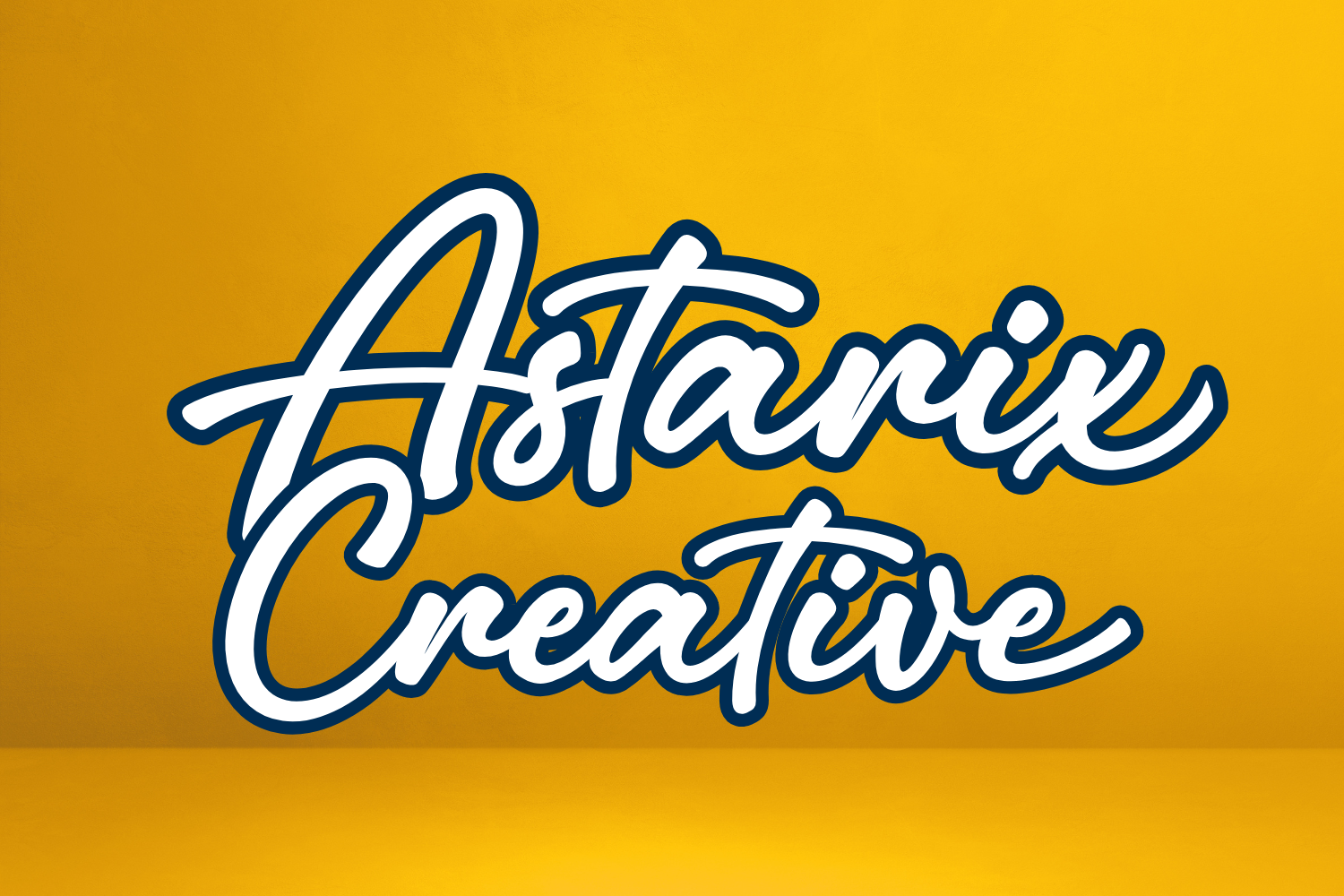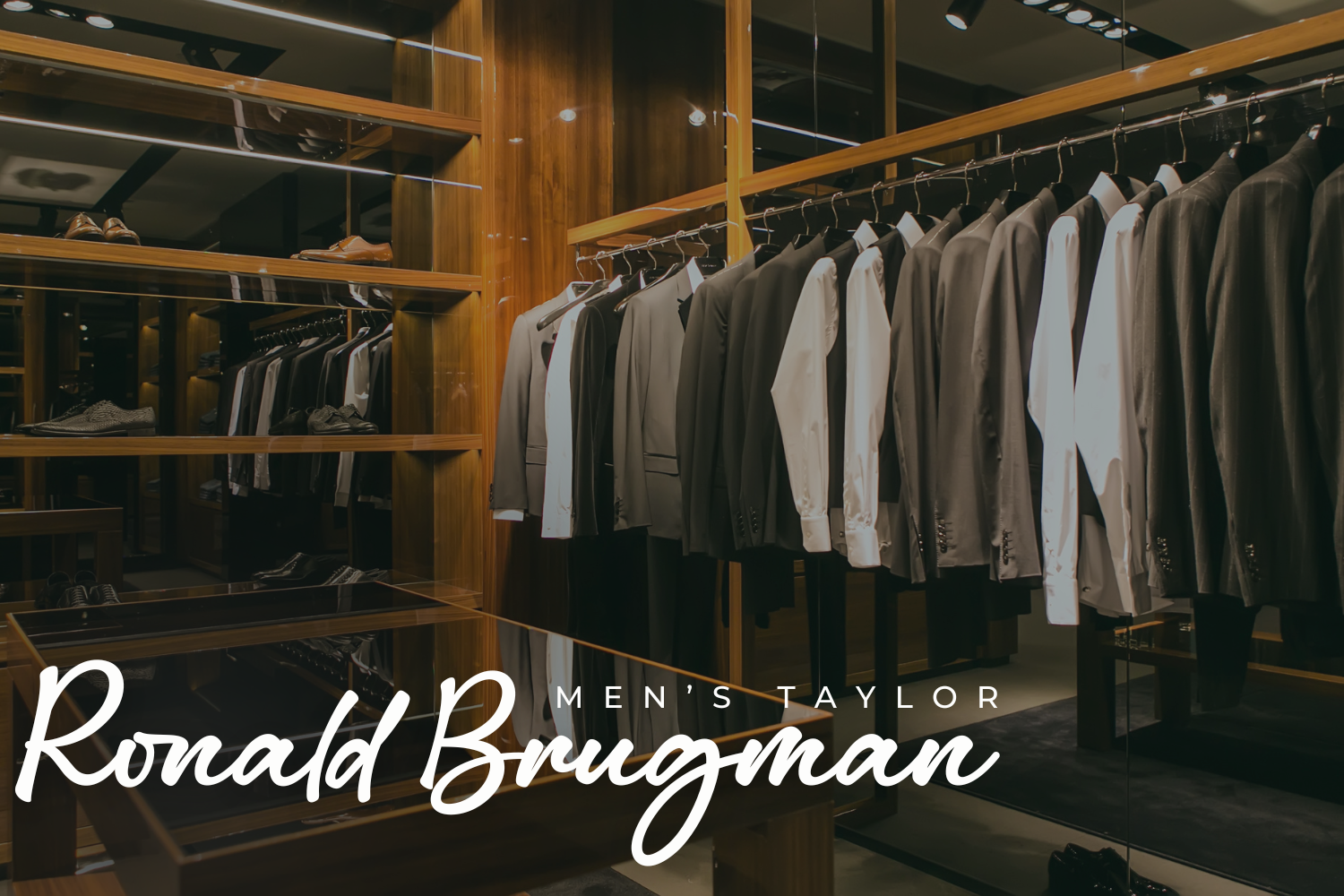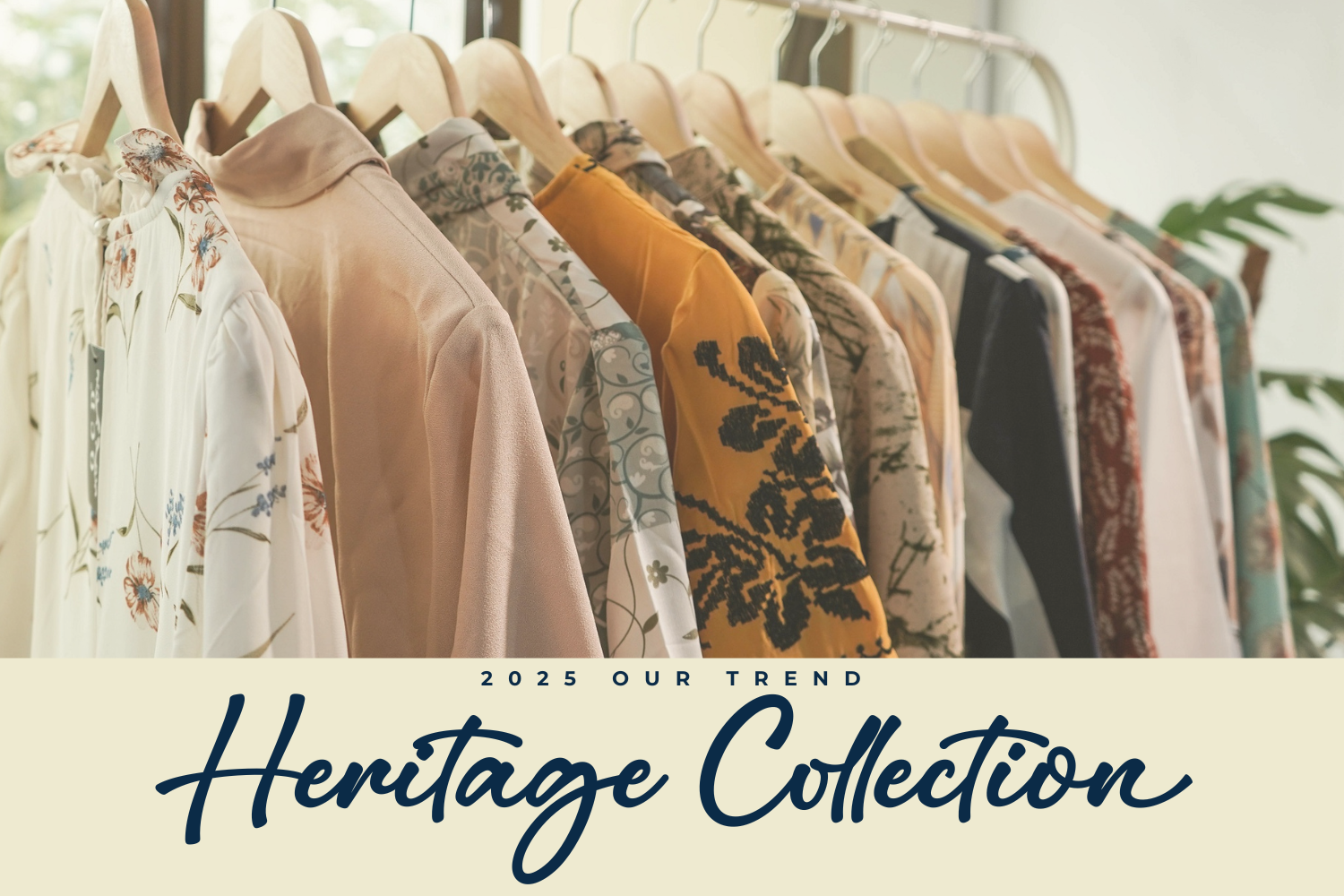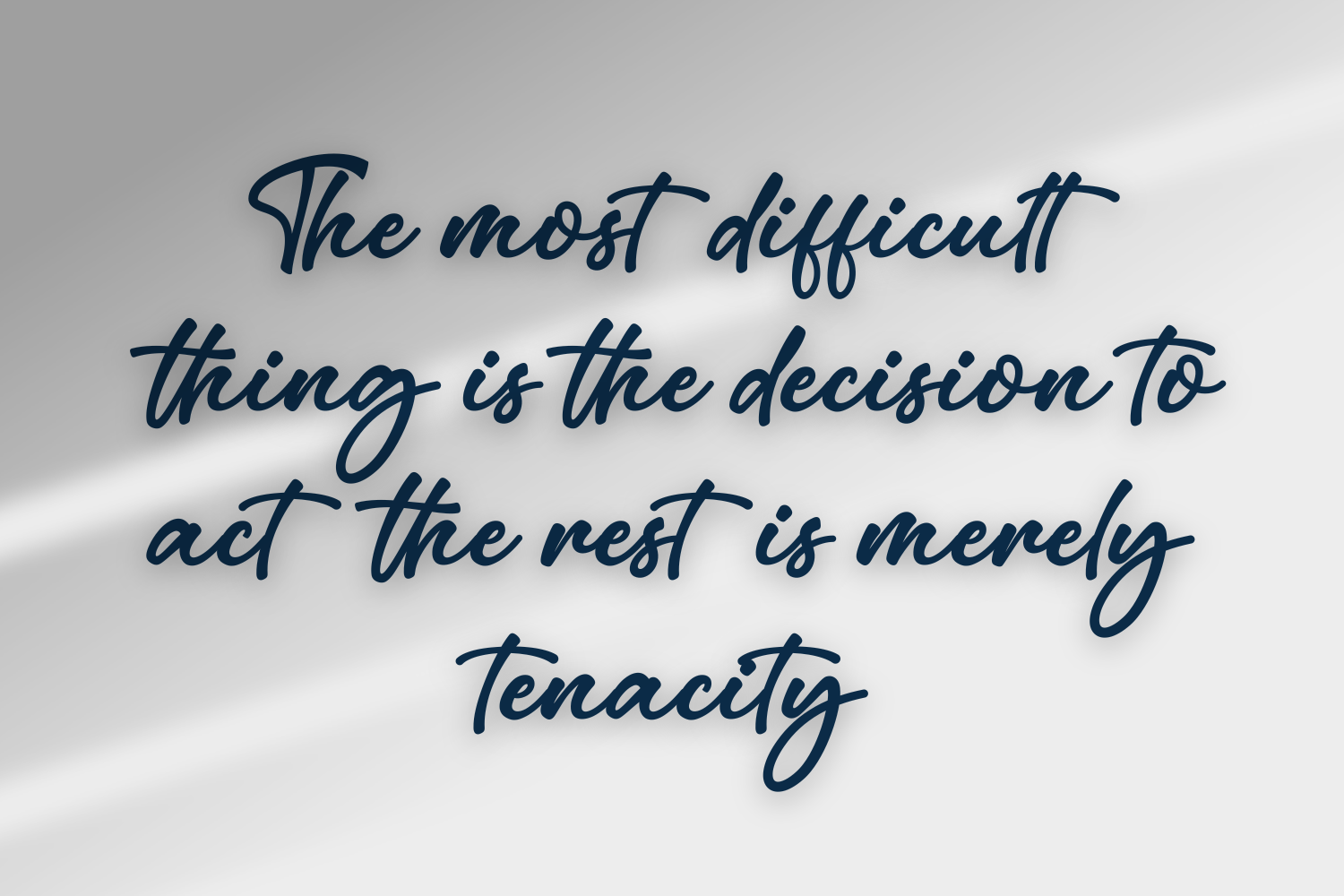
Endorsed Script Font
Endorsed Script is an elegant, flowing typeface that exudes sophistication and charm. With its graceful curves and handcrafted feel, this script font is perfect for luxury branding, wedding invitations, and high-end designs. Its fluid strokes and refined details create a sense of effortless beauty, making every word feel personal, expressive, and timelessly stylish.